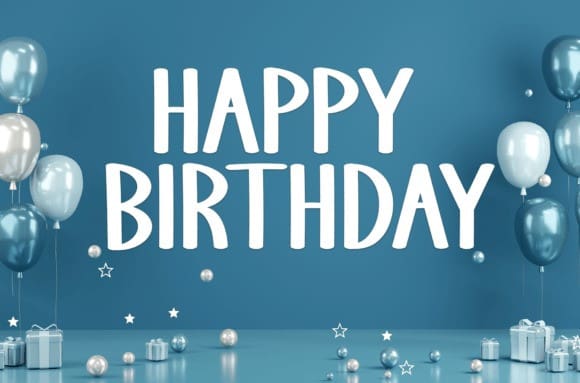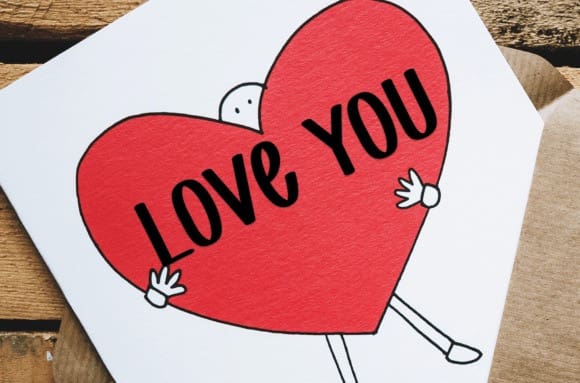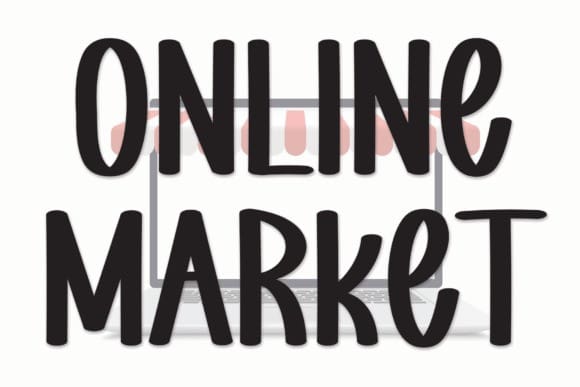
Online Market Font
Online Market Font is a sweet and friendly handwritten font. Fun and relaxed, this font is ideal for writing wedding invitations, cards, or any other design that might need a lovely touch!